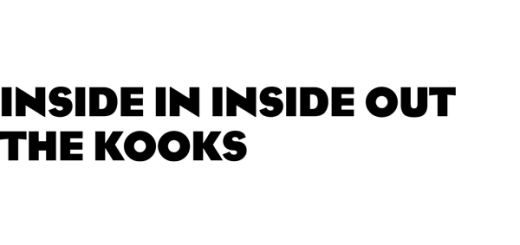
The Kooks ‘Inside In / Inside Out’
OPTIEagle-Bold by an unknown author is a font based on the title logo from The Kooks album Inside In / Inside Out. The typeface Eagle, designed by…
The typeface Eagle, designed by Morris Fuller Benton in 1933 for the American Type Founders, was initially created for the National Recovery Administration (NRA). It embodies Art Deco aesthetics, featuring bold, geometric letterforms that symbolized progress and industrial strength during the Great Depression. After the NRA’s dissolution, Eagle was released commercially and became popular in advertising and posters. Its streamlined, modern style remains a favorite for retro and vintage-inspired designs, showcasing Benton’s enduring influence in typography.
OPTIEagle-Bold by an unknown author is a font based on the title logo from The Kooks album Inside In / Inside Out. The typeface Eagle, designed by…